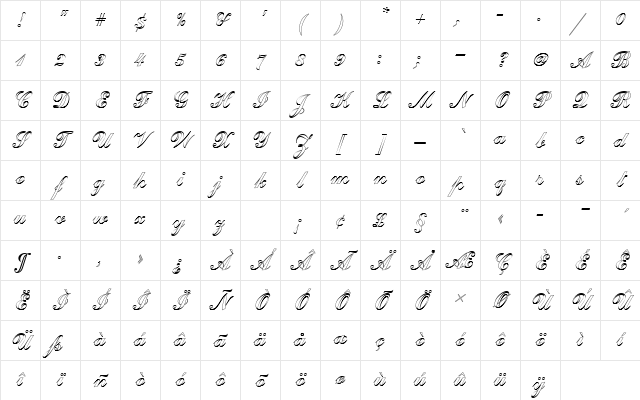
CommercialScrDOu1 Regular
Design Context for CommercialScrDOu1
CommercialScrDOu1 is a composed and adaptable typeface that performs quietly and consistently across a wide range of design contexts.